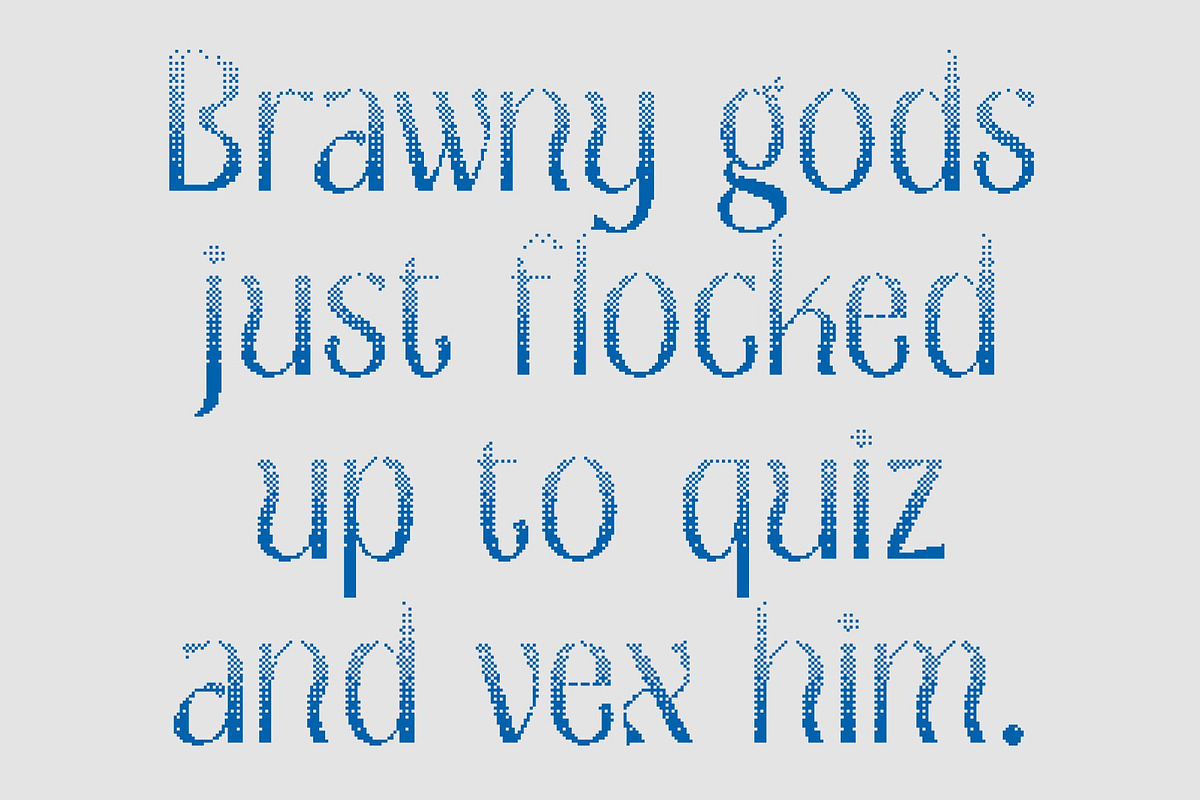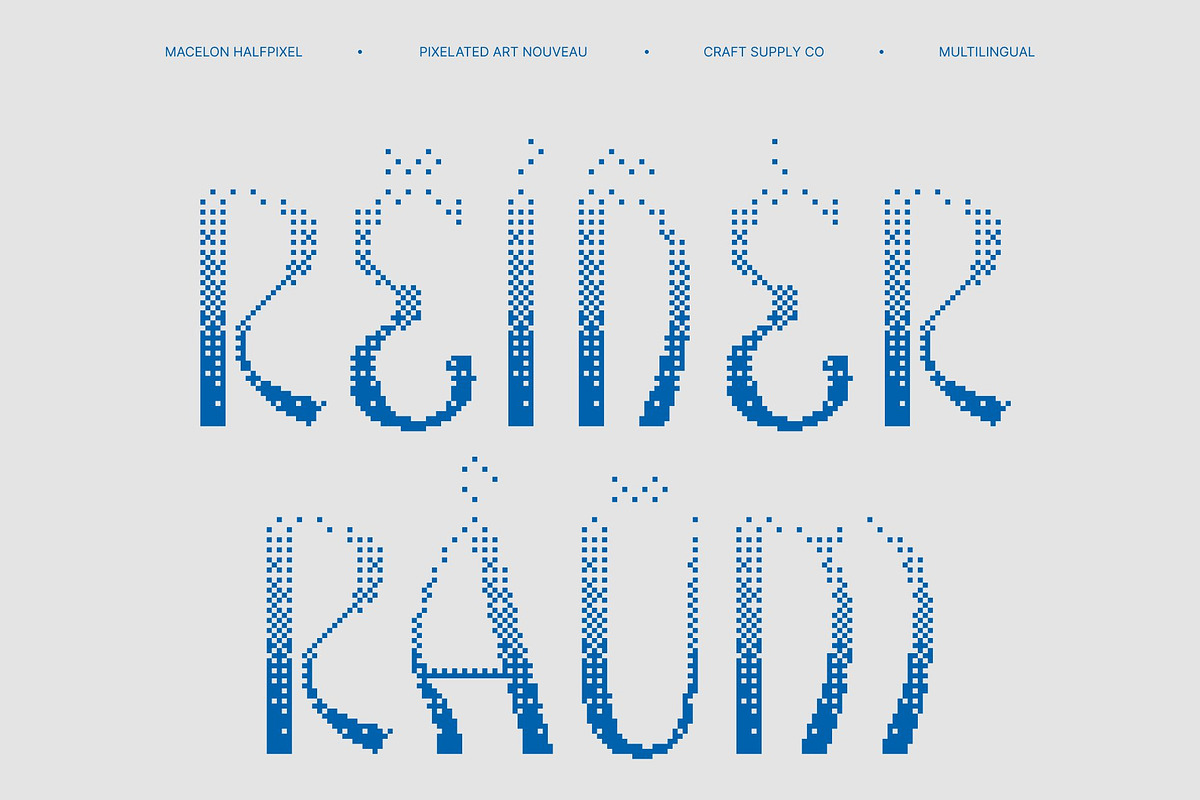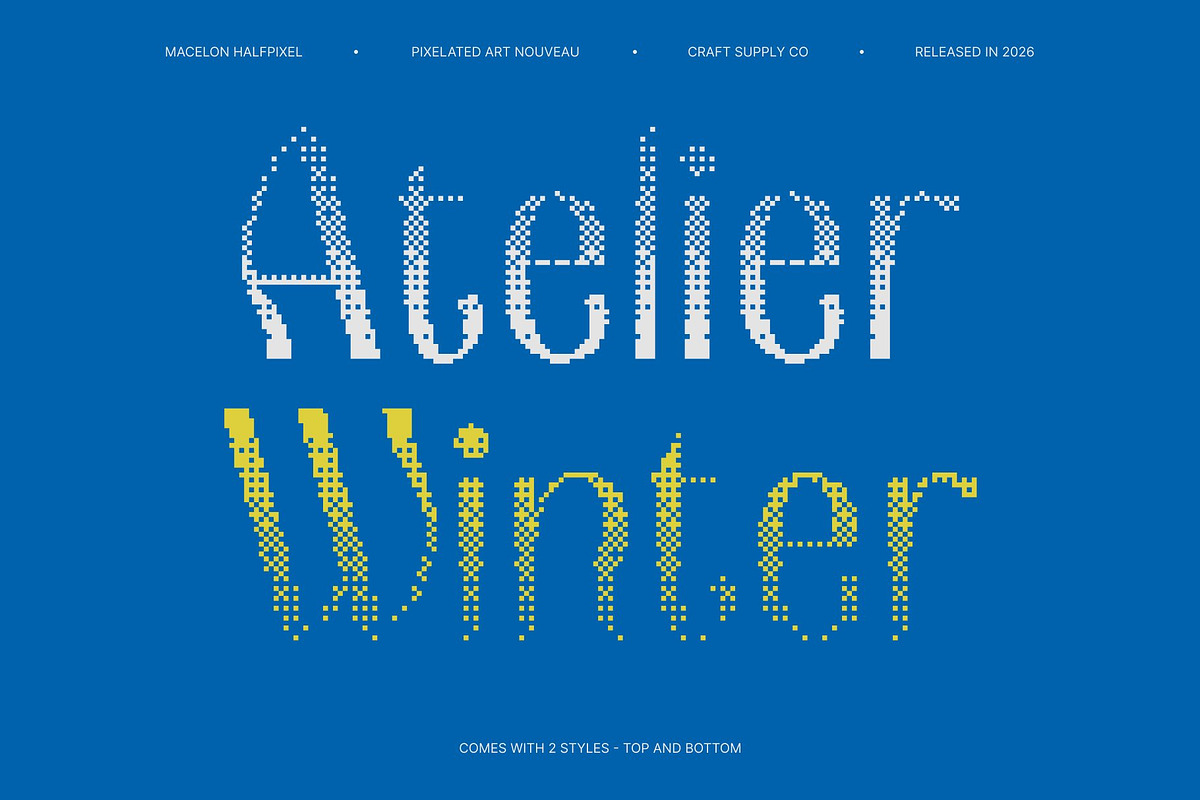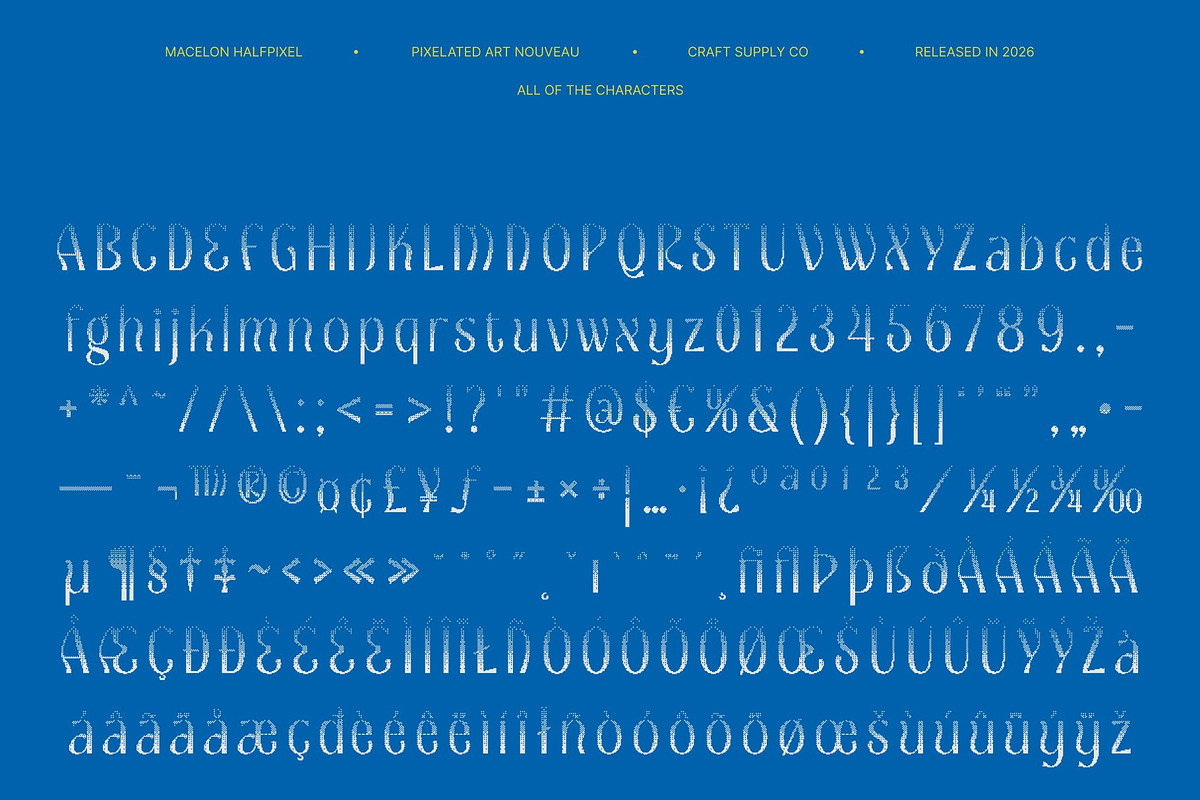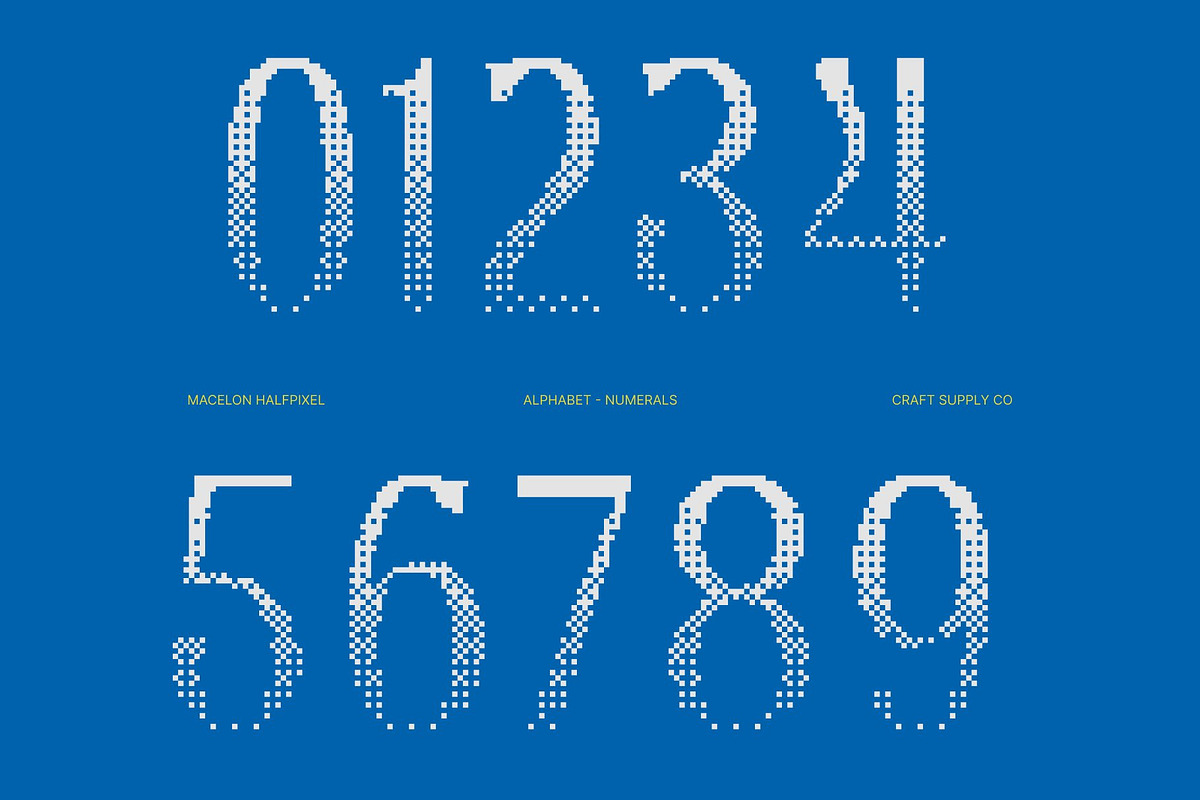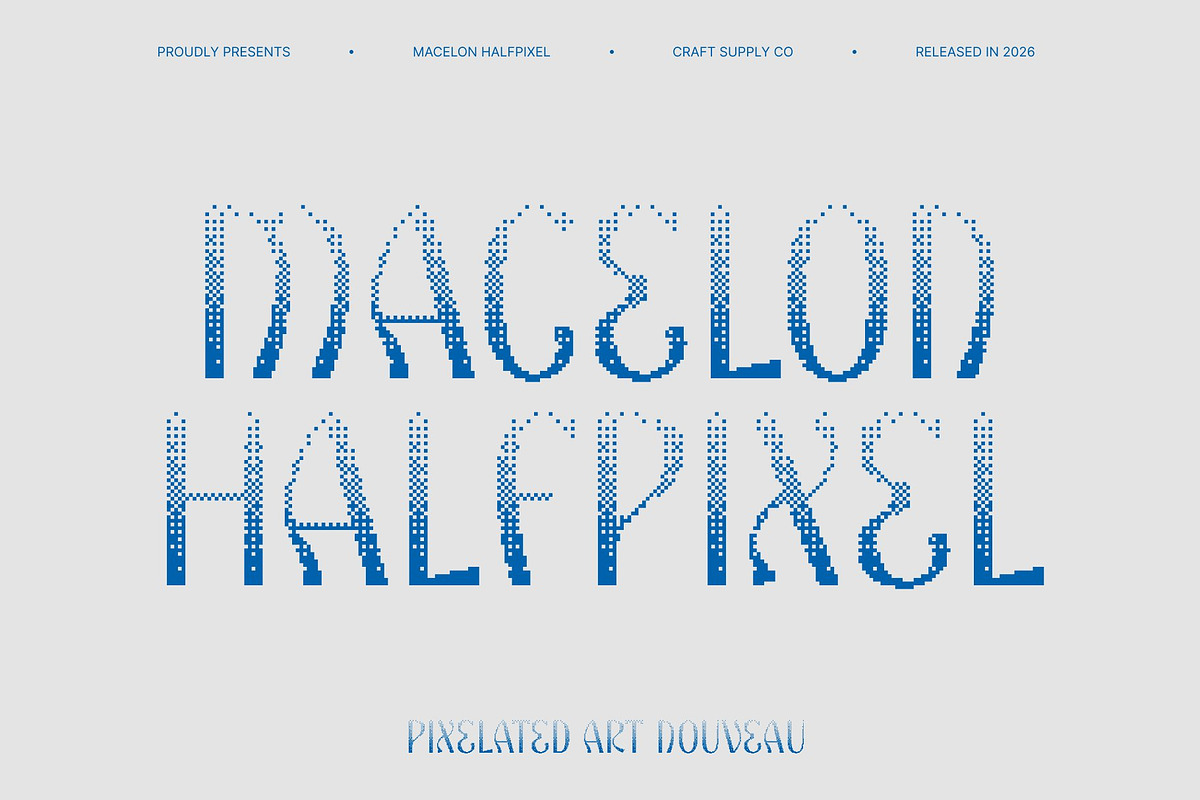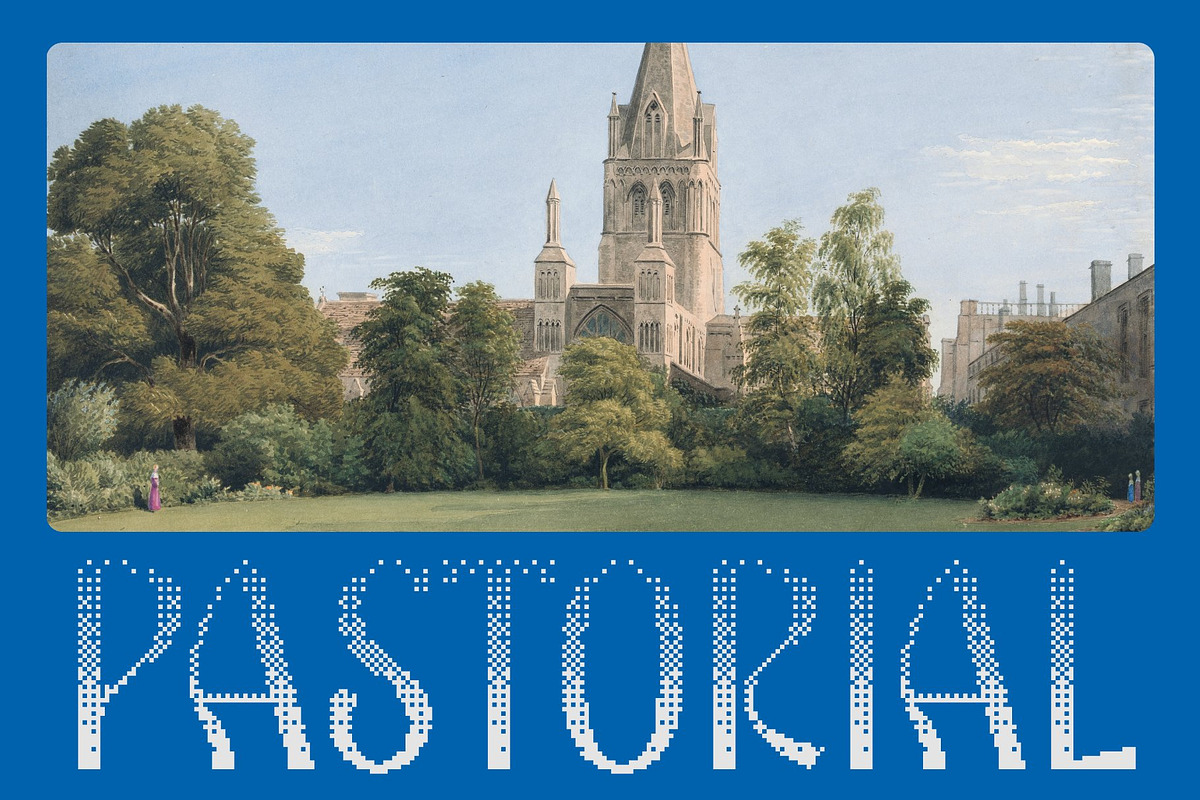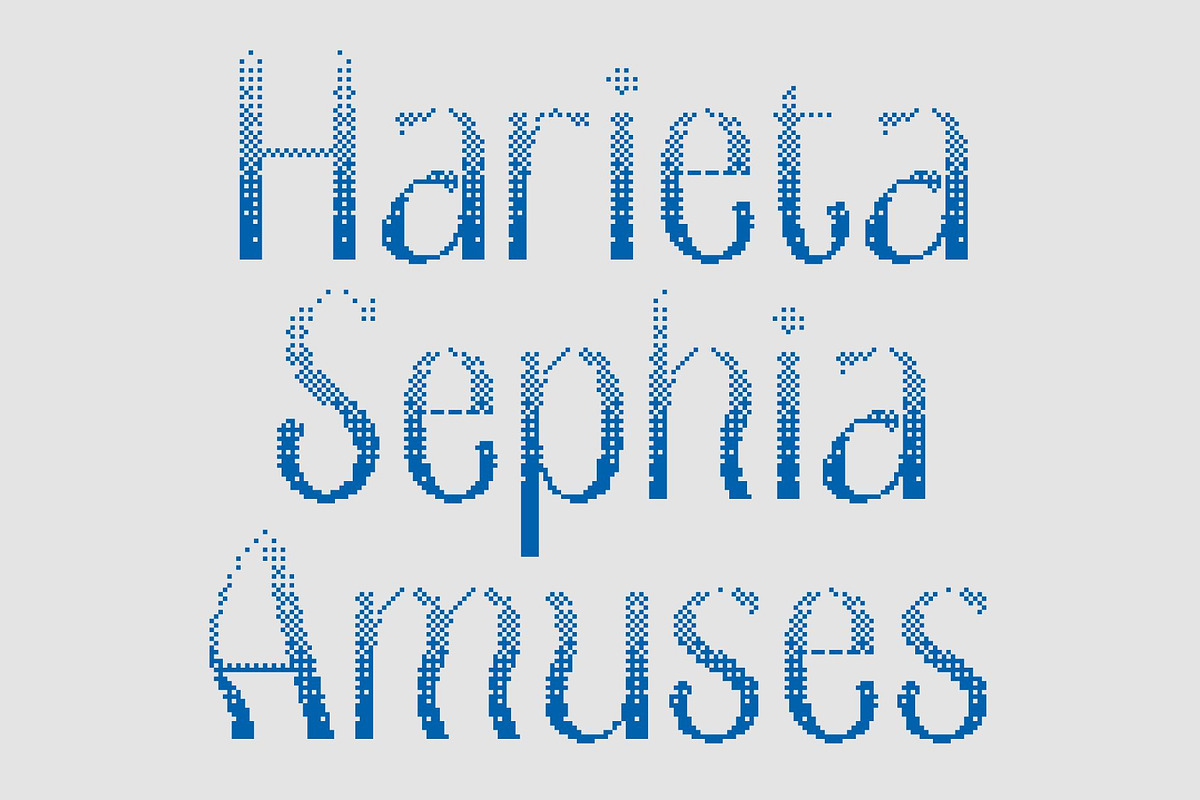
Macelon Halfpixel
Macelon Halfpixel – Art Nouveau Display Font
Where Funky Vibes Meet Playfulness This font is a display sans serif typeface inspired by the flowing elegance of the Art Nouveau movement. Blending artistic curves with a playful personality, this font brings a whimsical and energetic atmosphere to every design.
Playful Shapes with Artistic Flow Featuring fluid lines, decorative details, and expressive forms, this font captures the charm of vintage ornamental design while maintaining a modern, funky appeal. Its lively character adds creativity and visual excitement to headlines and display compositions.
Halfpixel Finish for Smooth Retro-Digital Texture The halfpixel treatment introduces subtle anti-aliasing that softens the edges of each character, creating a smoother appearance than traditional pixel styles. This gentle digital refinement enhances readability while preserving its retro-inspired personality.
Versatile for Creative and Eye-Catching Design From posters and packaging to branding, social media graphics, and artistic editorials, this font adapts beautifully across a variety of creative projects. Its unique style helps designs stand out with originality and charm.
Perfect for Bold and Playful Branding Whether for quirky startups, vibrant product lines, or expressive visual identities, this font injects personality and warmth into every composition. Its combination of Art Nouveau elegance and playful energy creates a memorable visual experience.